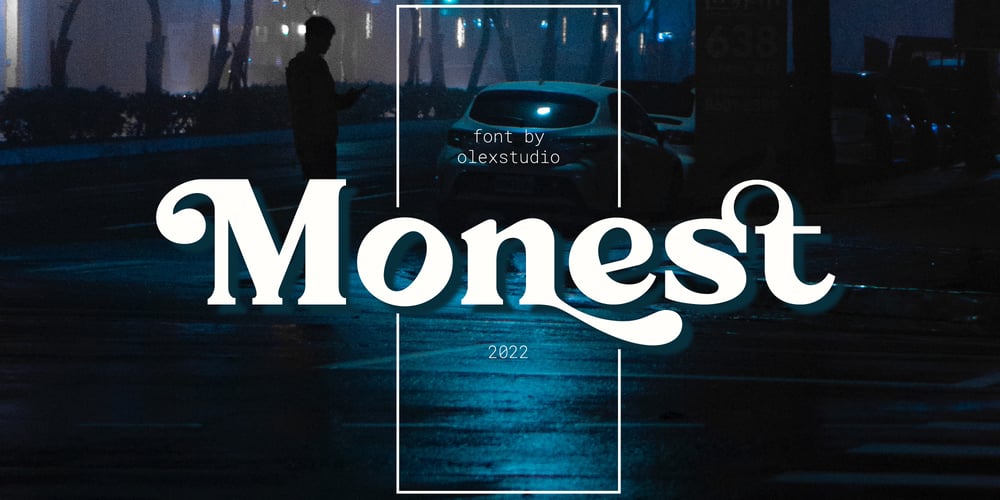
Monest Font Family was designed by Firman Syah and published by Olexstudio. Monest contains 1 styles and family package options. Monest – Vintage Serif Font will look gorgeous on all your designs, invitation, poster design, book design, branding materials, logo’s, t-shirt and all project design other.Monest – Vintage Serif contains standard characters, Lowercase, Lowercase Alternates, Uppercase, Uppercase Alternates, numbers, punctuation, ligatures and international glyphs. You will receive OTF, TTF files & WEBFONT.